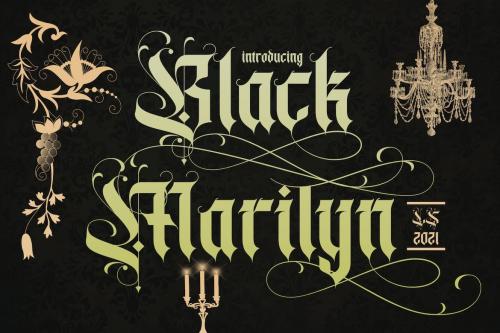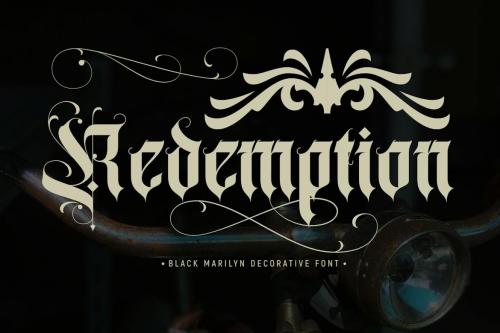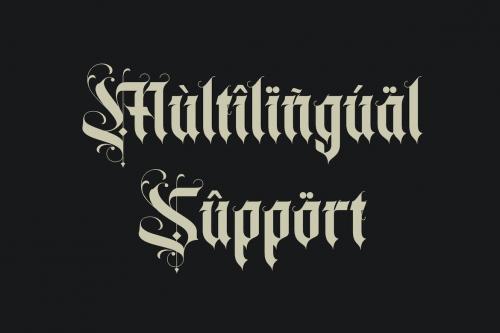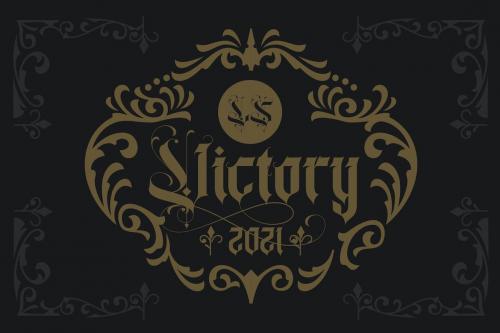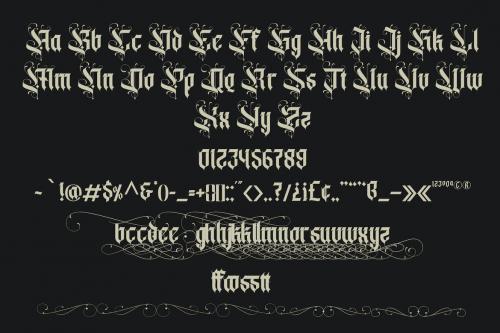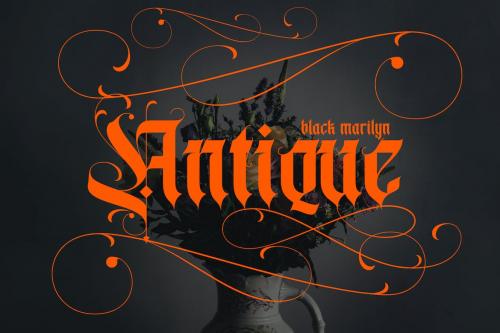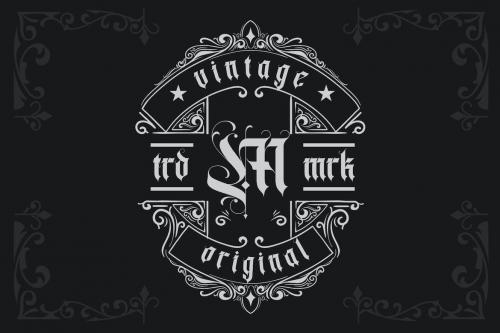
This pair was inspired by the vintage poster design that i saw on some coffee shop, It was crafted by hand specially to add natural handmade feeling in its brand identity than i make it clean with pentool.
**Opentype features**
Black Marilyn font has 224 character set included
Black Marilyn Font is very good looking in logo, labels, t-shirt prints, product packaging, invitations, advertising and others.
* Multilingual support (Western European characters).